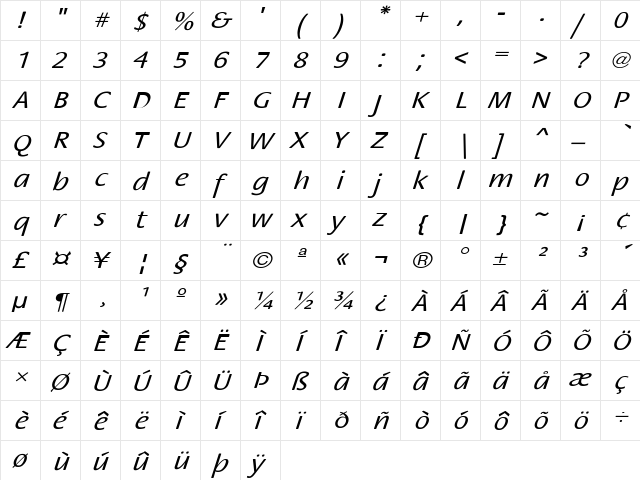
FloraExtObl-Normal Regular
Design Context for FloraExtObl-Normal Typeface
FloraExtObl-Normal is a composed and adaptable typeface that performs quietly and consistently across a wide range of design contexts.